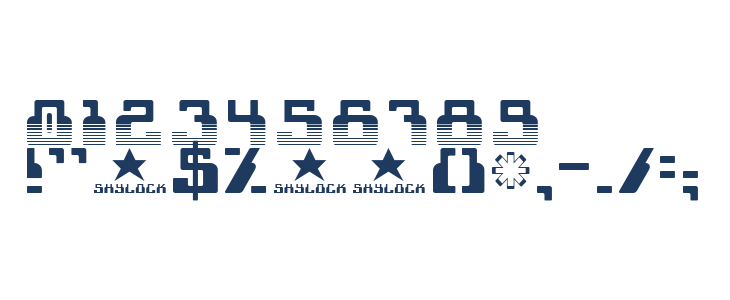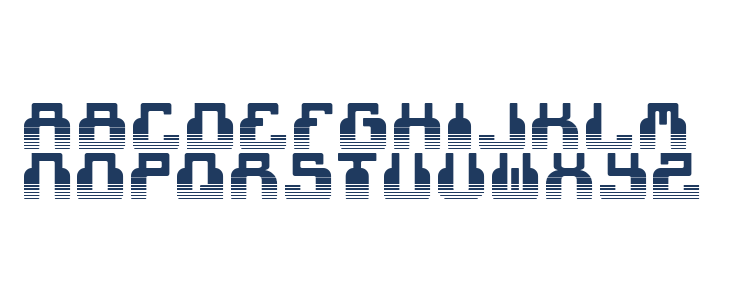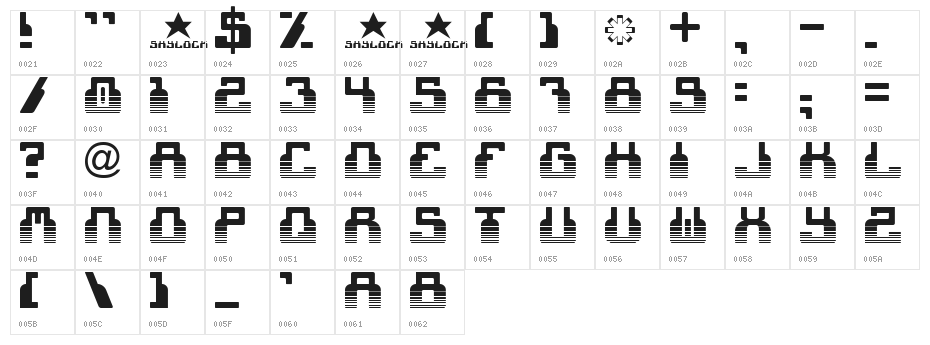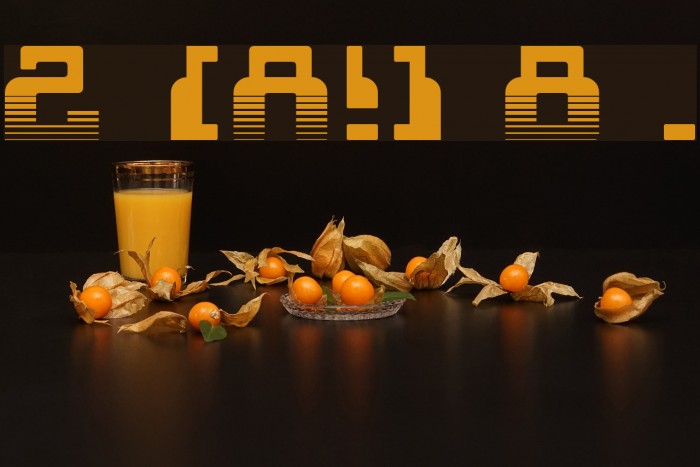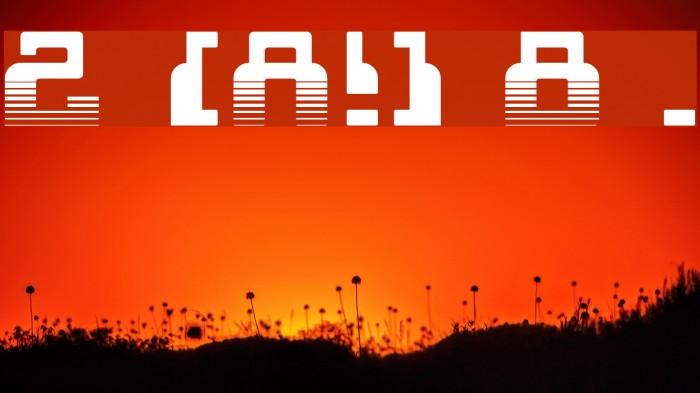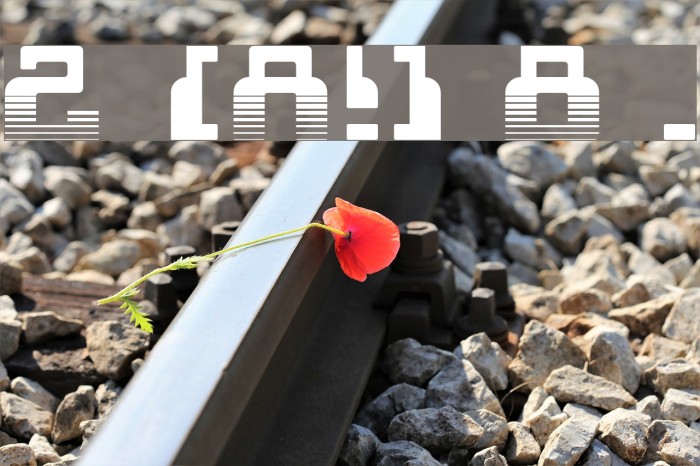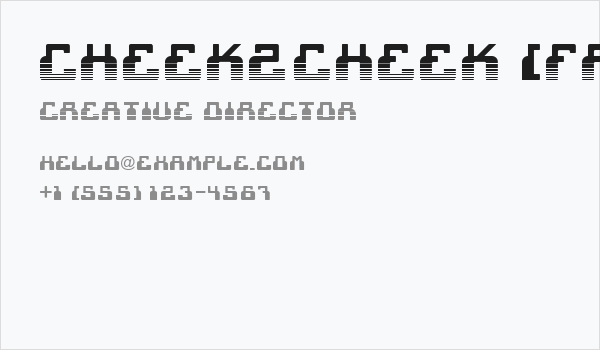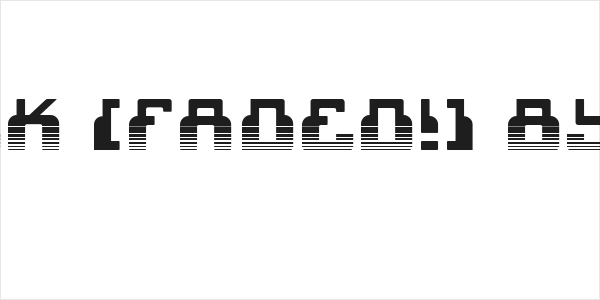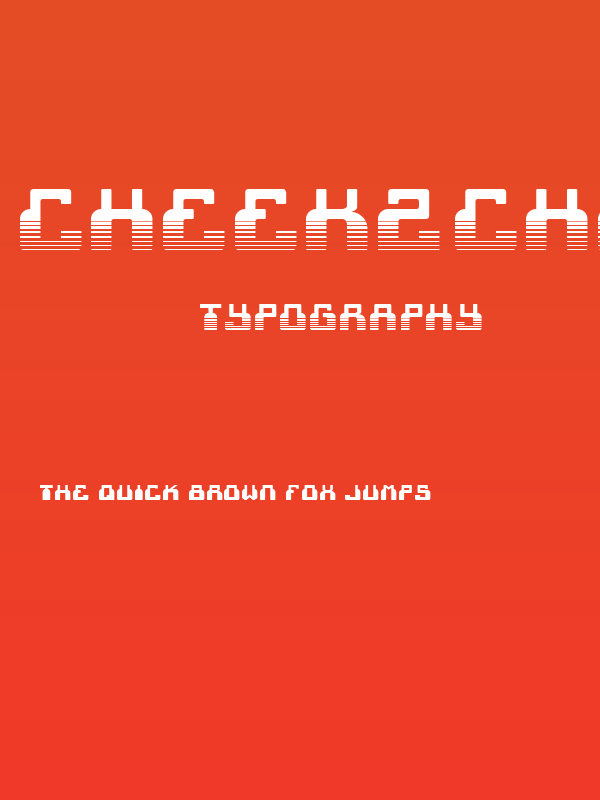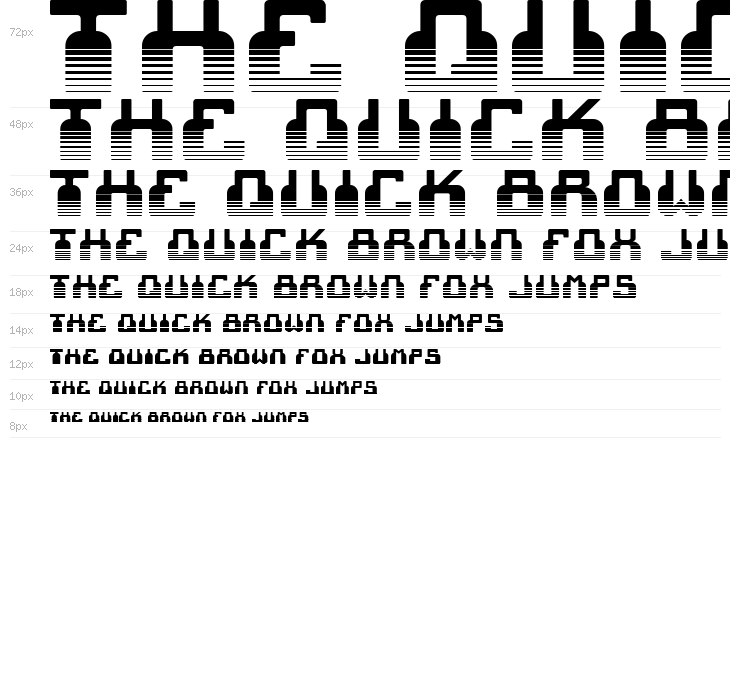
cheek2cheek [faded!] by shk.dezign Font
cheek2cheek [faded!] by shk.dezign Description
This font features a unique design with a modern, futuristic appeal. Each character is constructed with horizontal lines that create a fading effect, giving the font a dynamic and layered appearance. The uppercase and lowercase letters maintain a consistent style, with a bold and geometric structure that is both eye-catching and readable. Numbers and special characters are designed to match the overall aesthetic, ensuring a cohesive look across all text elements. The font's distinct style makes it suitable for creative and innovative projects.
| Proposed Projects | Ideal for digital art, tech-themed branding, futuristic posters, and innovative product packaging. |